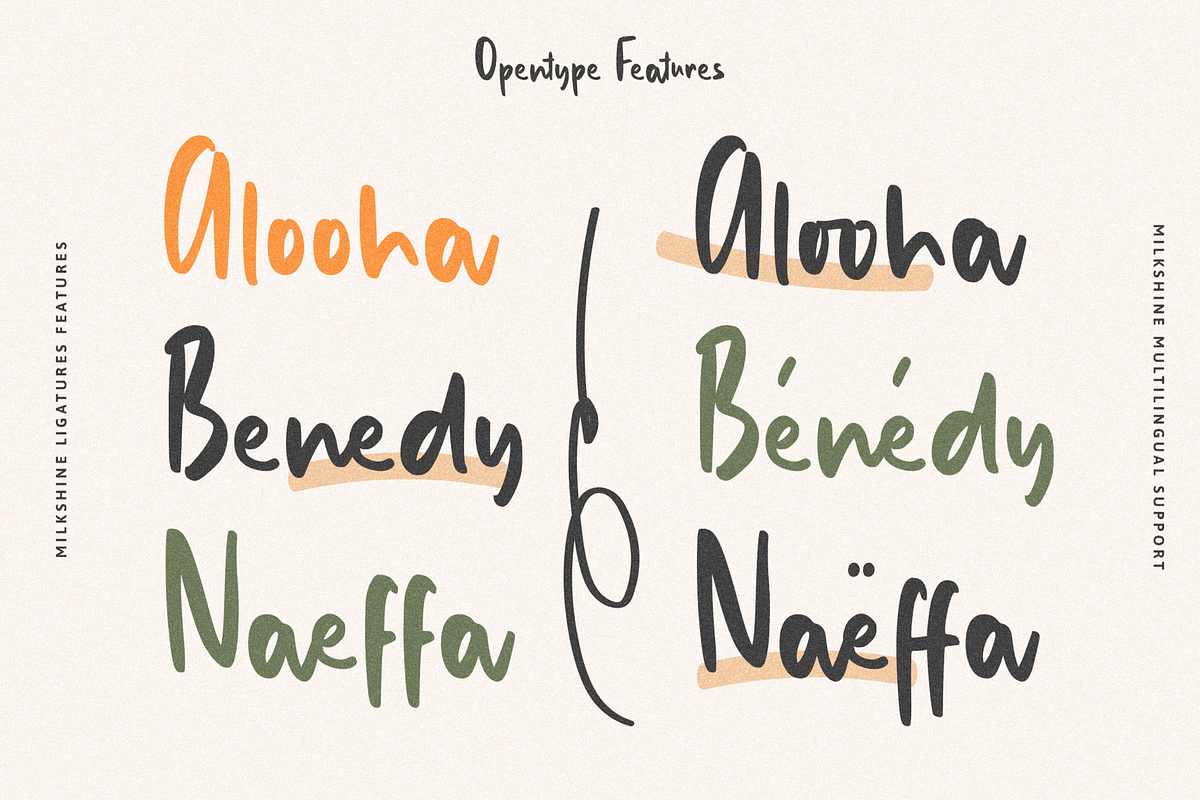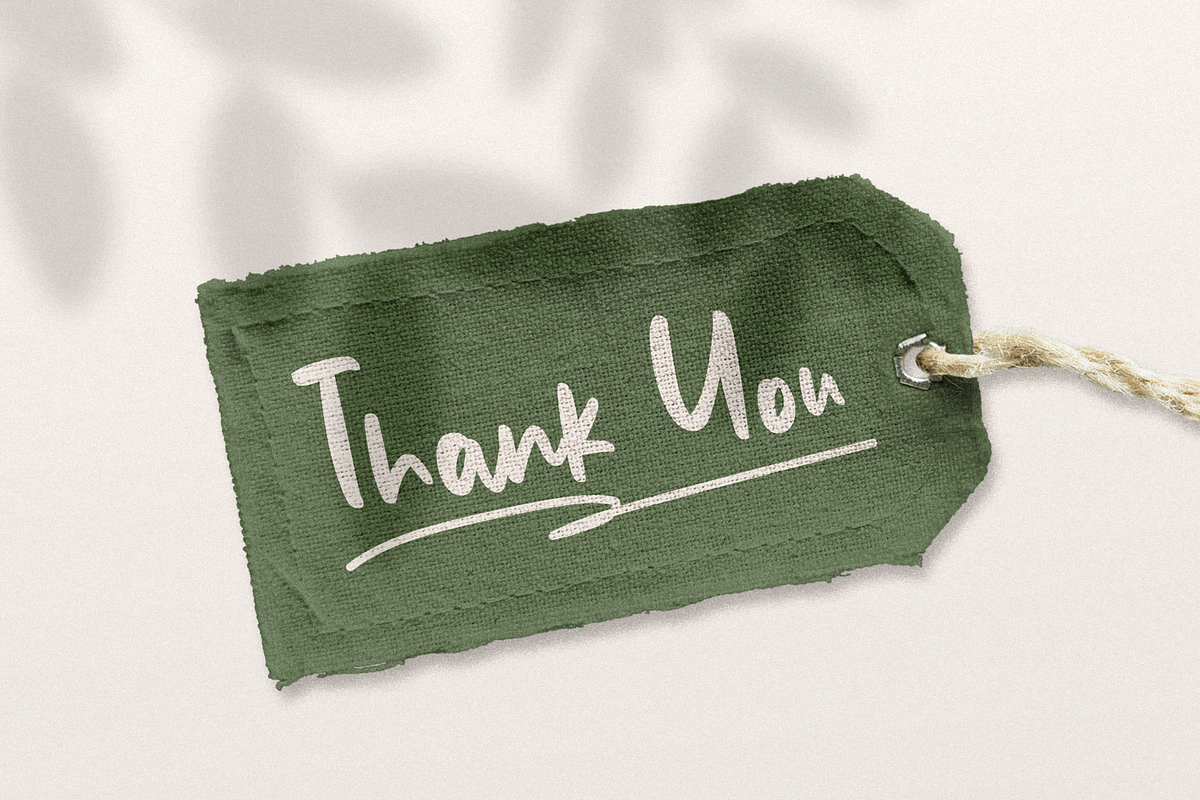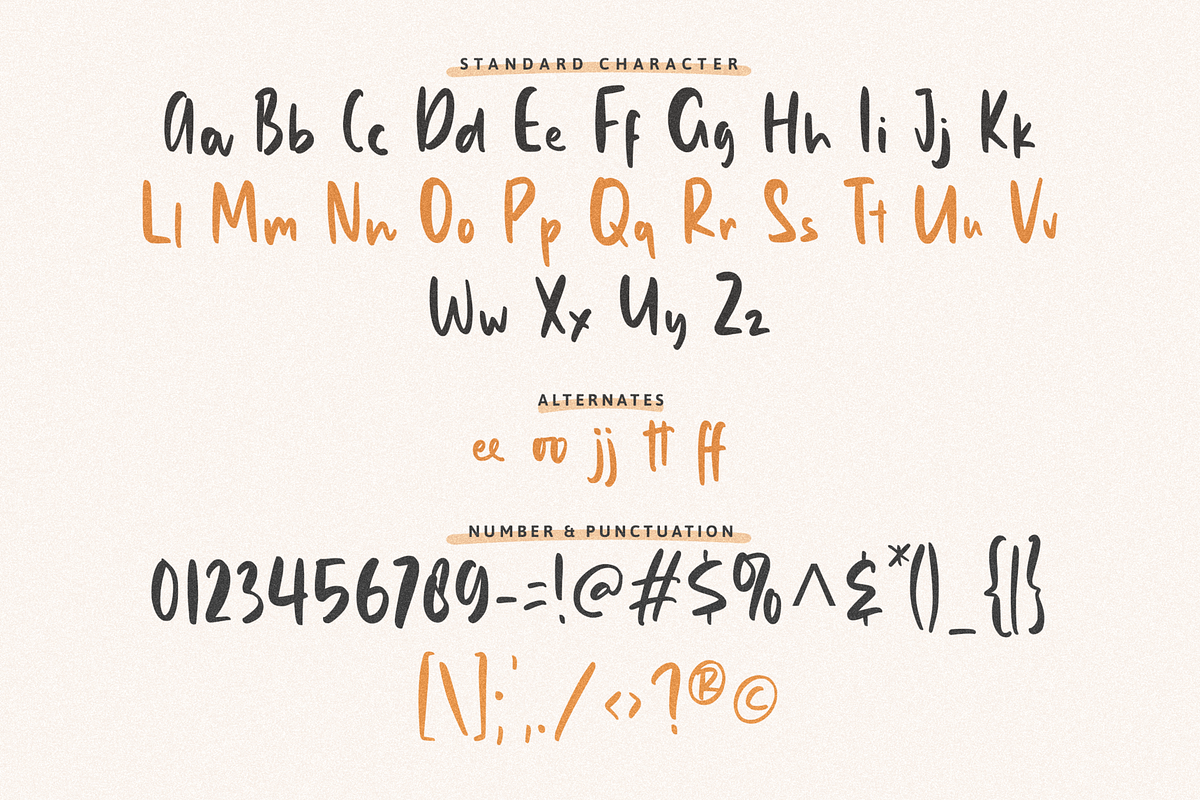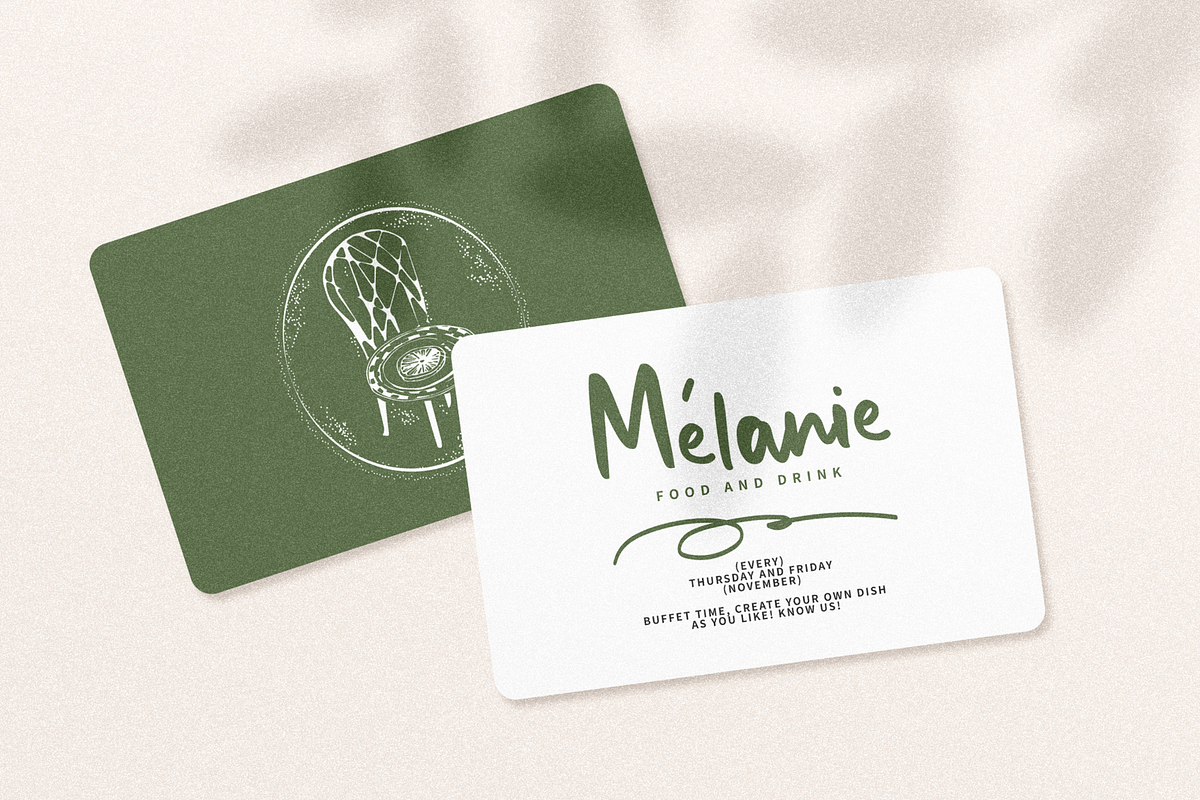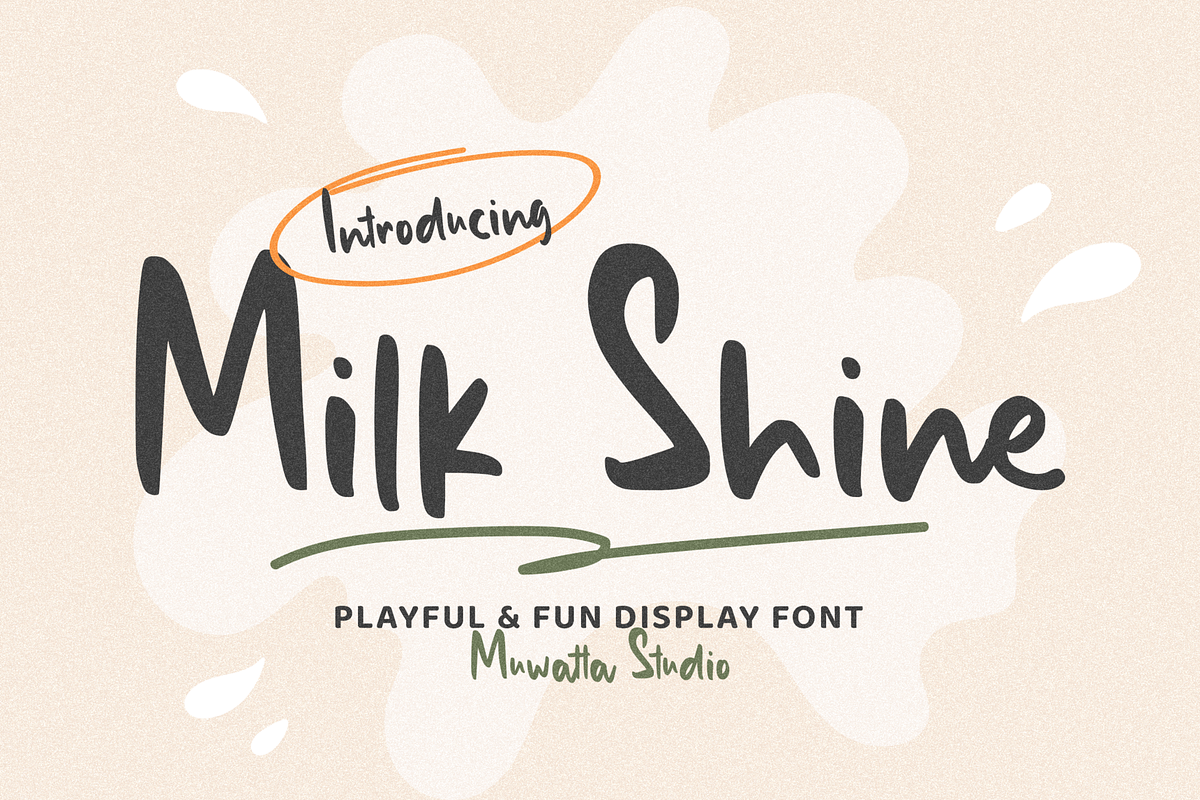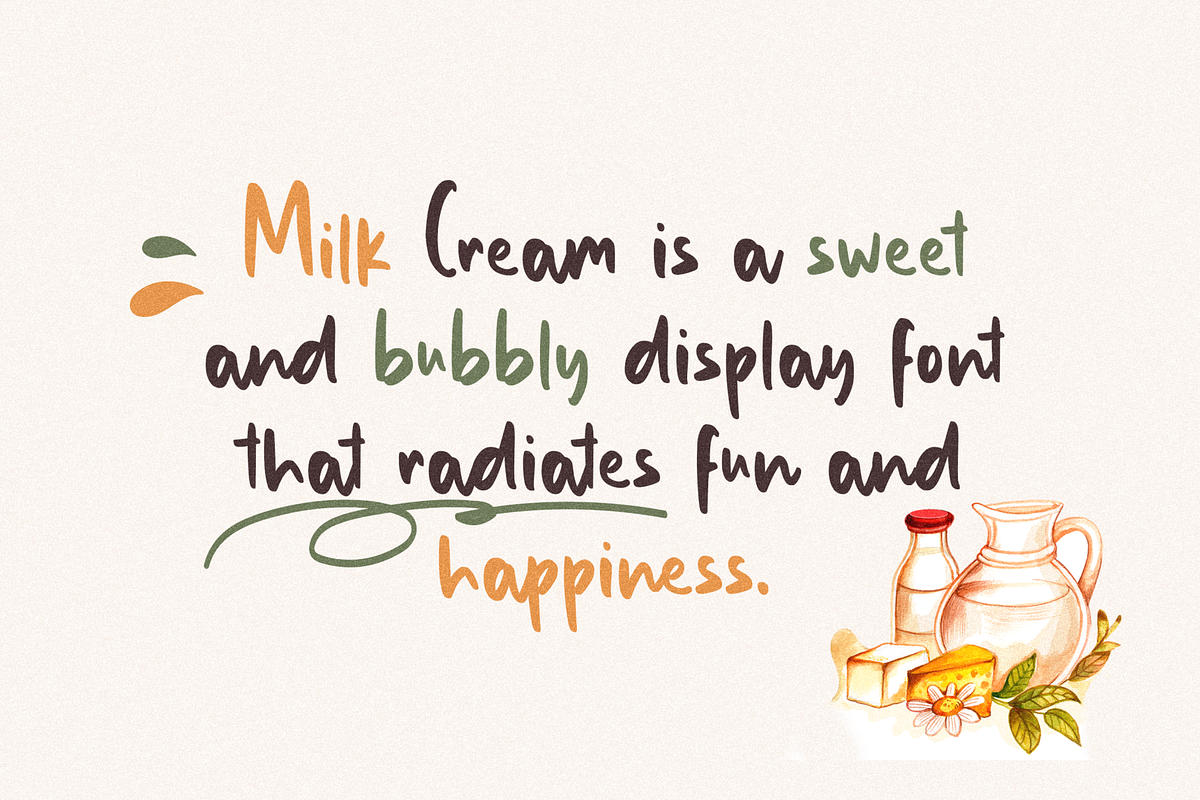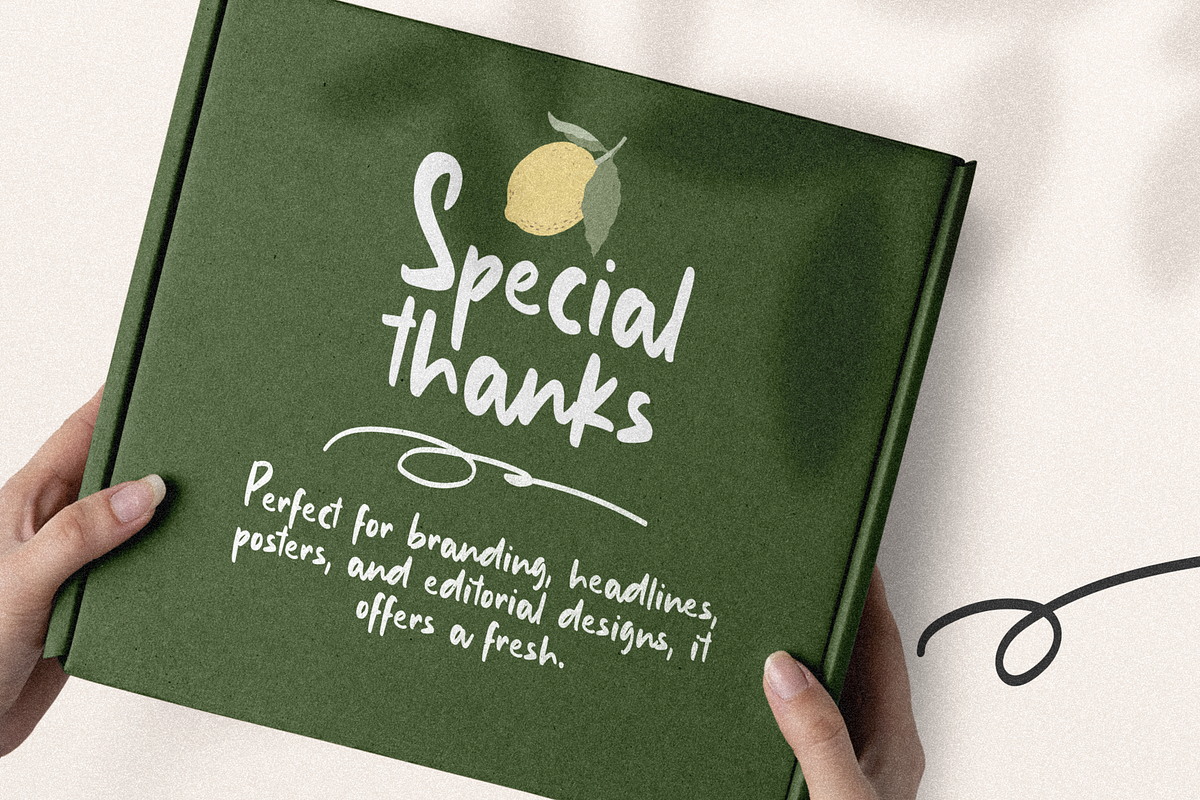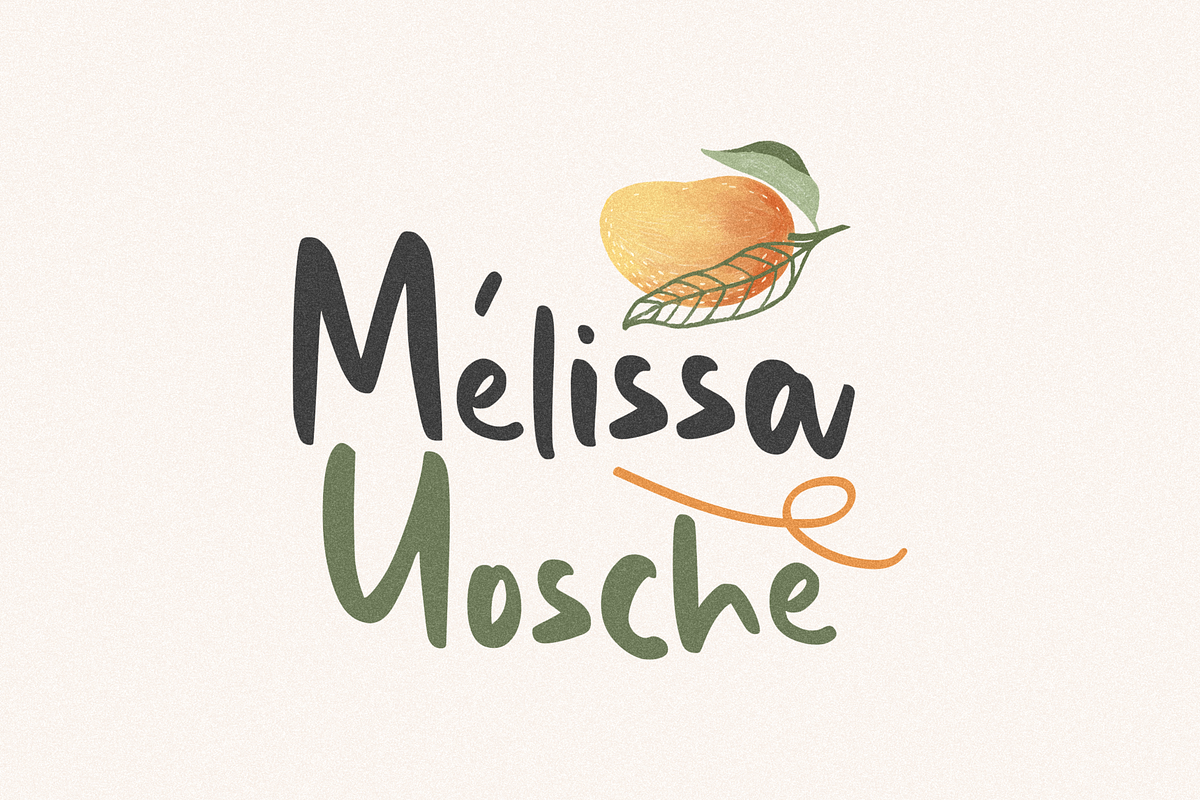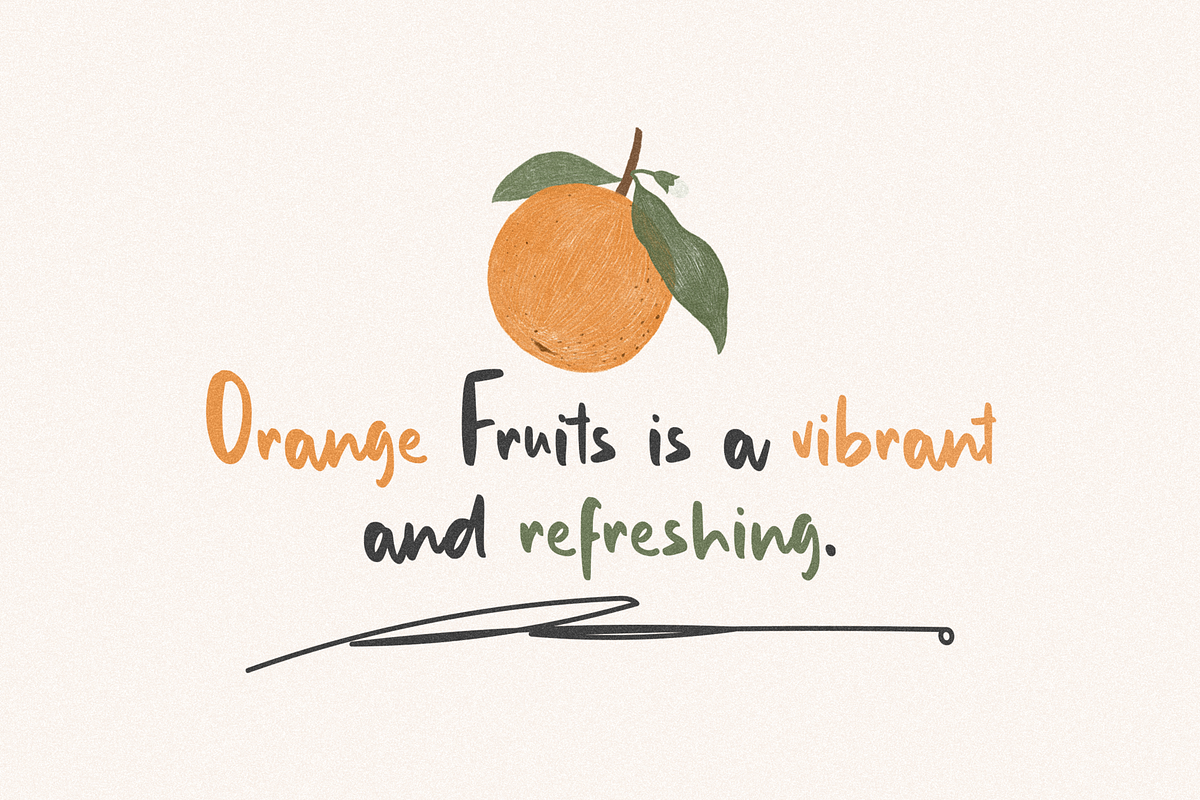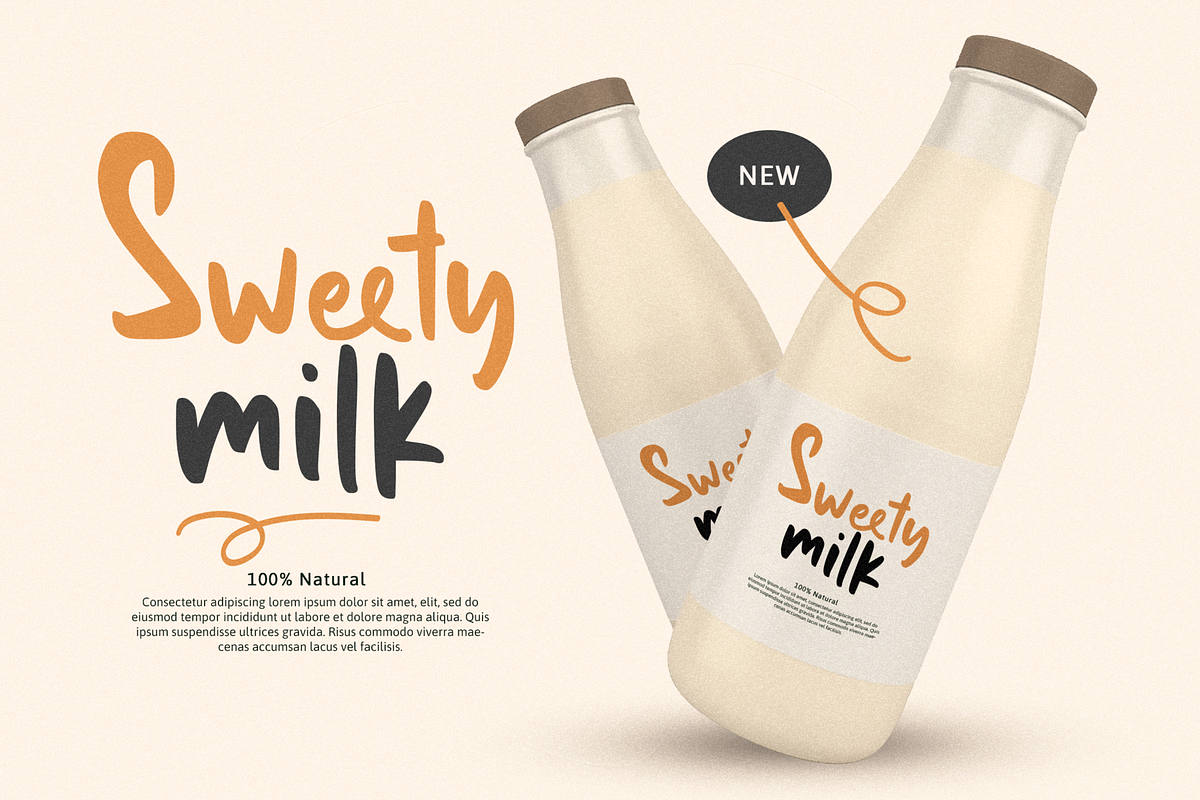
Milk Shine
Milk Shine – Handwritten Font with a Splash of Charm
Product Description: "Milk Shine" is a soft and characterful handwritten font, designed to give a sweet and personal touch to every design. Inspired by natural hand strokes with a hint of retro-modern, Milk Shine is suitable for anything that wants to feel warm, cheerful, and friendly.
This font comes with free-flowing letterforms, full of soft curves, and a look that feels like real handwriting. It is ideal for branding projects that want to appear close to the audience, such as food and beverage logos, handmade product packaging, social media content, inspirational quotes, to invitation and greeting card designs.